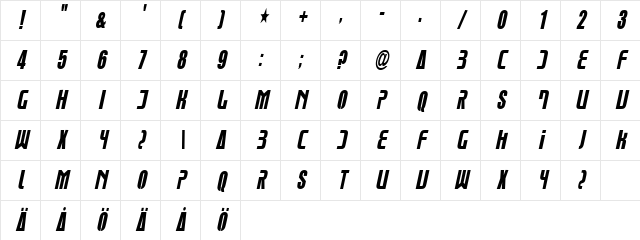
Complete Glue Klinging Klan Thin Italic Regular glyph index. Displaying only characters natively supported by Glue Klinging Klan Thin Italic Regular font.
Glue Klinging Klan Thin Italic is a composed and adaptable typeface that performs quietly and consistently across a wide range of design contexts. The slanted form adds forward momentum and visual energy. Its slender proportions lend an understated elegance to any composition.
Pro Tip: Use Glue Klinging Klan Thin Italic for emphasis, pull quotes, and subheadings where its slanted energy can add rhythm to the layout.